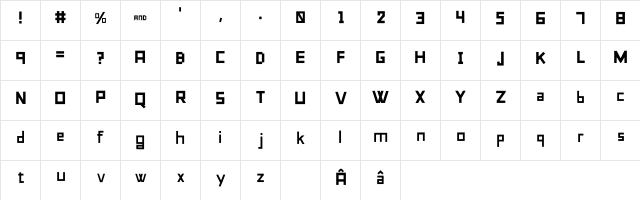
The Slavic Font Regular
Design Context for The Slavic Font Typeface
The Slavic Font offers clean, dependable letterforms without strong stylistic allegiance, making it a practical choice for designers who need flexibility.